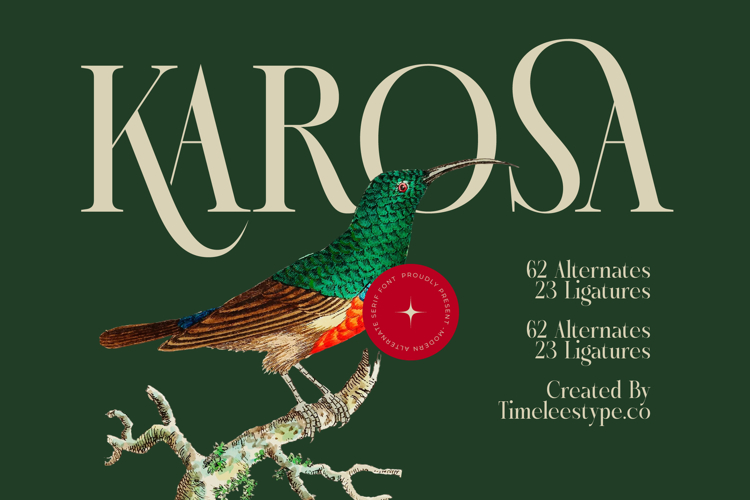
Karosa - Modern Serif Font
Elevate your brand aesthetic with Karosa - Modern Serif Font, a typeface designed to embody timeless elegance and contemporary flair. This magnificent serif font captivates with its high-contrast strokes and subtly refined serifs, creating a visual harmony that exudes sophistication and luxury. It's the ultimate choice for designers seeking to make a bold, yet incredibly graceful statement in their projects.
Unleash unparalleled creative flexibility with the comprehensive features of Karosa - Modern Serif Font. Boasting an impressive collection of 62 alternates and 23 ligatures, this font empowers you to craft truly unique and expressive typography. Each character has been meticulously designed to offer versatile styling options, transforming ordinary text into artful, bespoke compositions perfect for distinguishing your brand.